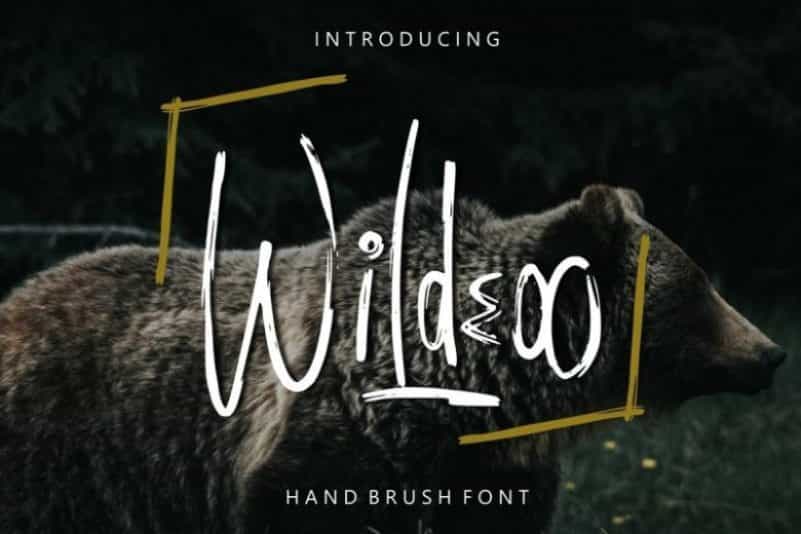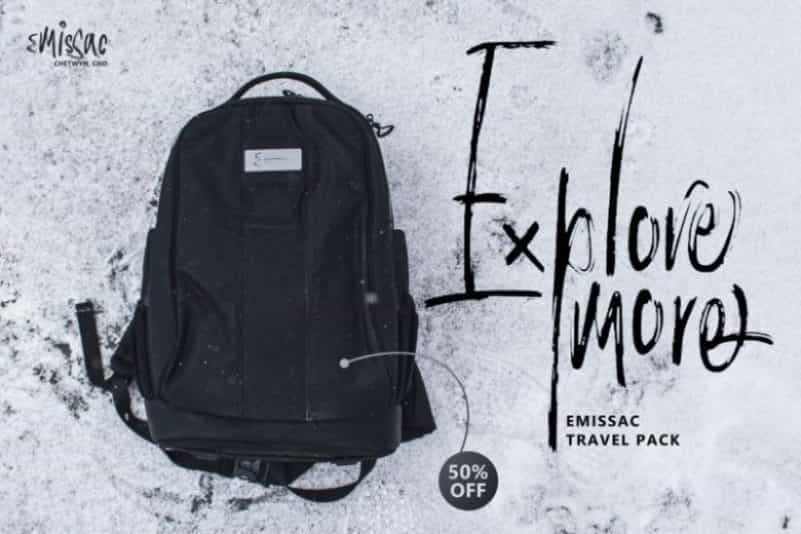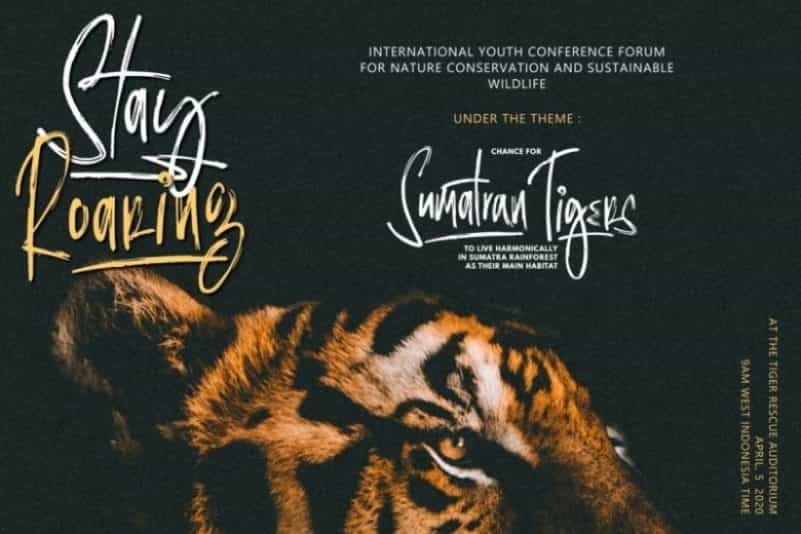
It is a brush typeface that you can use to give your text a stylish and contemporary look with an element of wildness. That will enhance the beauty of your design project even more. Wildeoo is ideal for branding projects, logos, weddings, social media, product packaging, t-shirt designs, product designs, labels, photos, Tumblr can be the private space for some teenage girls to blush and hide secrets, and invitation, stationery, and any project you can think of.